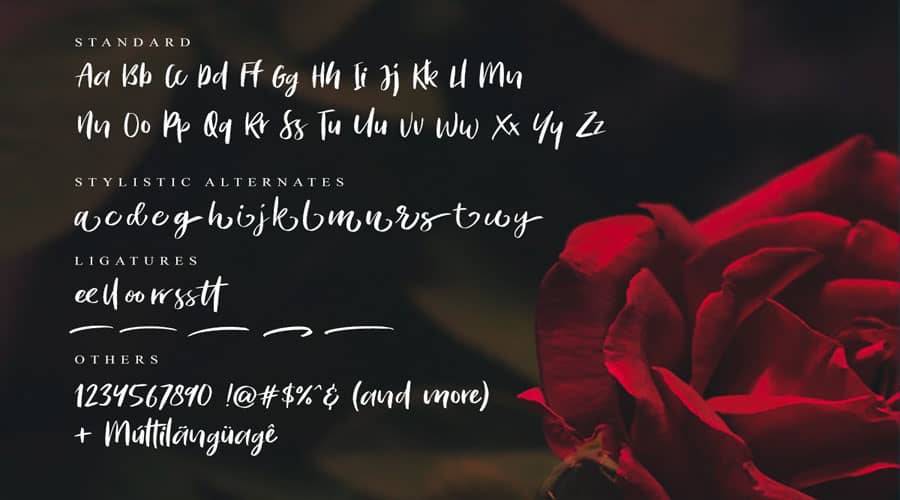
Bitter Rose Brush Font
Bitter Rose brush font is now available. Sarid Ezra created and shared Bitter Rose on March 8, 2019.
Bitter Rose brush Font is a new handcrafted brush font featuring rounded corners. The Font is fantastic, and I believe it will be the most acceptable free font bundle of the day. You can use the typeface in a variety of languages. Available in both OTF and TTF formats. The Font Supports PUA as well.
Bitter Rose is a brush typeface with stylistic alternates, swashes, and other features to help you create your own personalized signature, quotations, or logo design. This Font is ideal for a variety of projects, including quotes, logos, blog headers, posters, branding, fashion, clothes, letters, invitations, stationery, and more. The Font is Perfect for the wallpaper designed primarily created for travelling purposes which ended up being polished.
| Name | Bitter Rose Brush Font |
| Style | Script, Brush |
| Designer | Sarid Ezra |